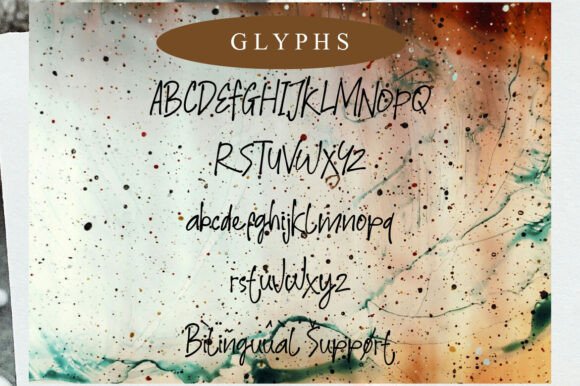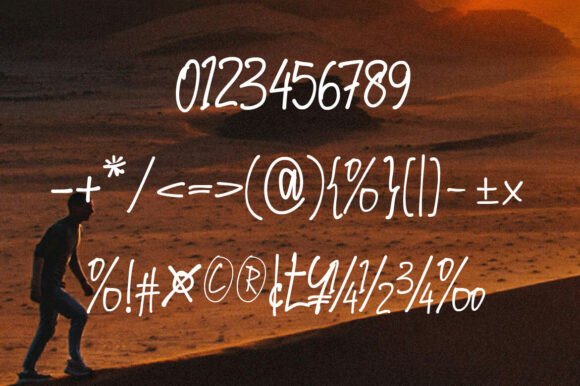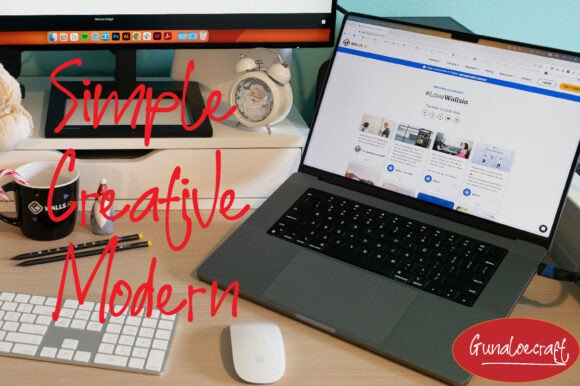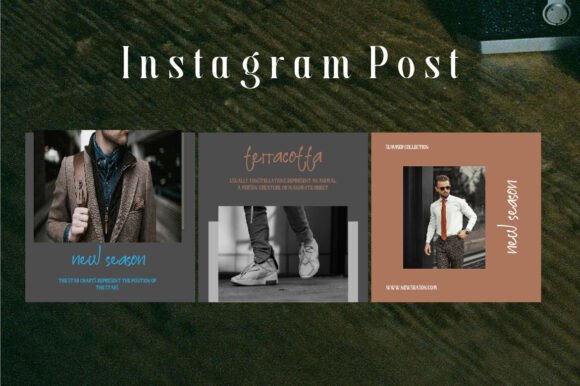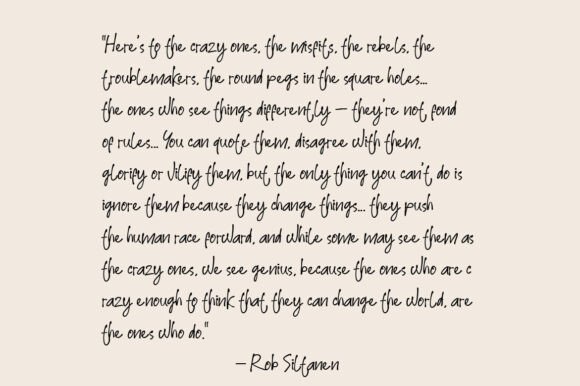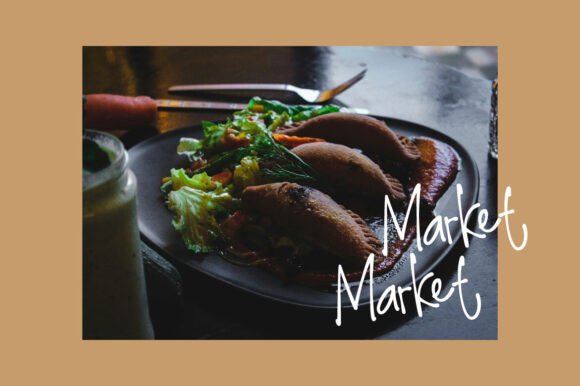
Introducing Brewoxs Font: Add a Playful Touch to Your Designs
Are you tired of using the same old fonts in your designs? Look no further! Brewoxs Font is here to bring a playful and cheerful touch to your creations. This adorable and whimsical script font features handwritten-style characters that are sure to capture the attention of your audience.
What is Brewoxs Font?
Brewoxs Font is a unique and creative script font that is perfect for designers and crafters looking to add a personal touch to their work. With its handwritten-style characters, Brewoxs Font gives your designs a friendly and approachable feel that’s hard to resist. Whether you’re working on a logo, invitation, or social media graphic, Brewoxs Font is the perfect choice.
Key Features of Brewoxs Font
- Handwritten-style characters: Brewoxs Font features beautiful, handwritten-style characters that give your designs a personal and playful touch.
- Whimsical and playful: This font is perfect for designs that require a cheerful and upbeat vibe, such as children’s party invitations or fun social media graphics.
- Adorable and charming: Brewoxs Font is sure to capture the hearts of your audience with its adorable and charming characters.
- Easy to read: Despite its playful nature, Brewoxs Font is easy to read and understand, making it perfect for body text and headings.
Uses of Brewoxs Font
Brewoxs Font is versatile and can be used in a variety of design projects, including:
- Logos and branding: Create a unique and memorable logo for your business or brand with Brewoxs Font.
- Invitations and events: Add a playful touch to your party invitations, wedding cards, or other event materials.
- Social media graphics: Create fun and engaging social media graphics, such as Facebook posts, Instagram stories, or Twitter headers.
- Stationery and paper goods: Add a personal touch to your stationery, notebooks, or other paper goods with Brewoxs Font.
Tips for Using Brewoxs Font
Here are some tips for getting the most out of Brewoxs Font:
- Pair with bold fonts: Pair Brewoxs Font with bold fonts to create a striking contrast and add visual interest to your designs.
- Use in combination with images: Combine Brewoxs Font with fun and playful images to create a cohesive and engaging design.
- Experiment with colors: Try out different colors and color combinations to add an extra layer of personality to your designs.
In conclusion, Brewoxs Font is a unique and creative script font that is perfect for designers and crafters looking to add a playful touch to their designs. With its handwritten-style characters and whimsical nature, Brewoxs Font is sure to capture the attention of your audience and bring a smile to their faces. So why not give Brewoxs Font a try and see how it can elevate your designs?